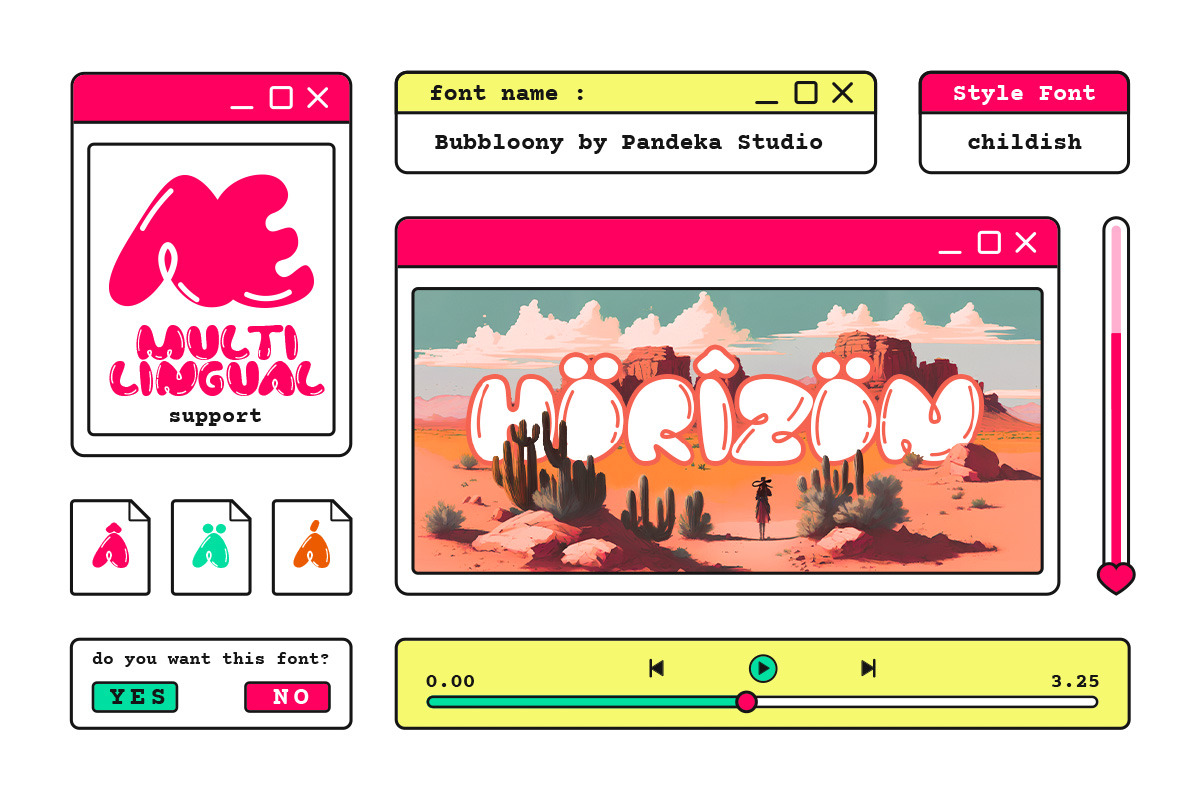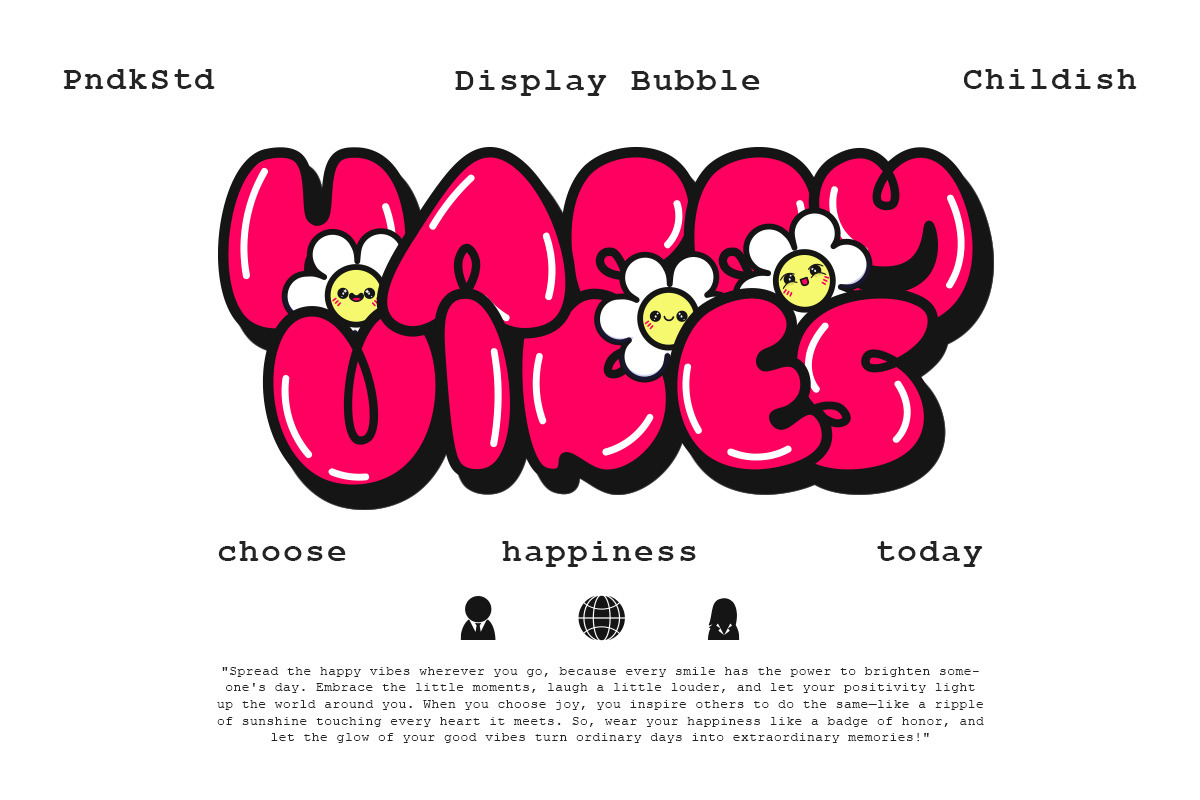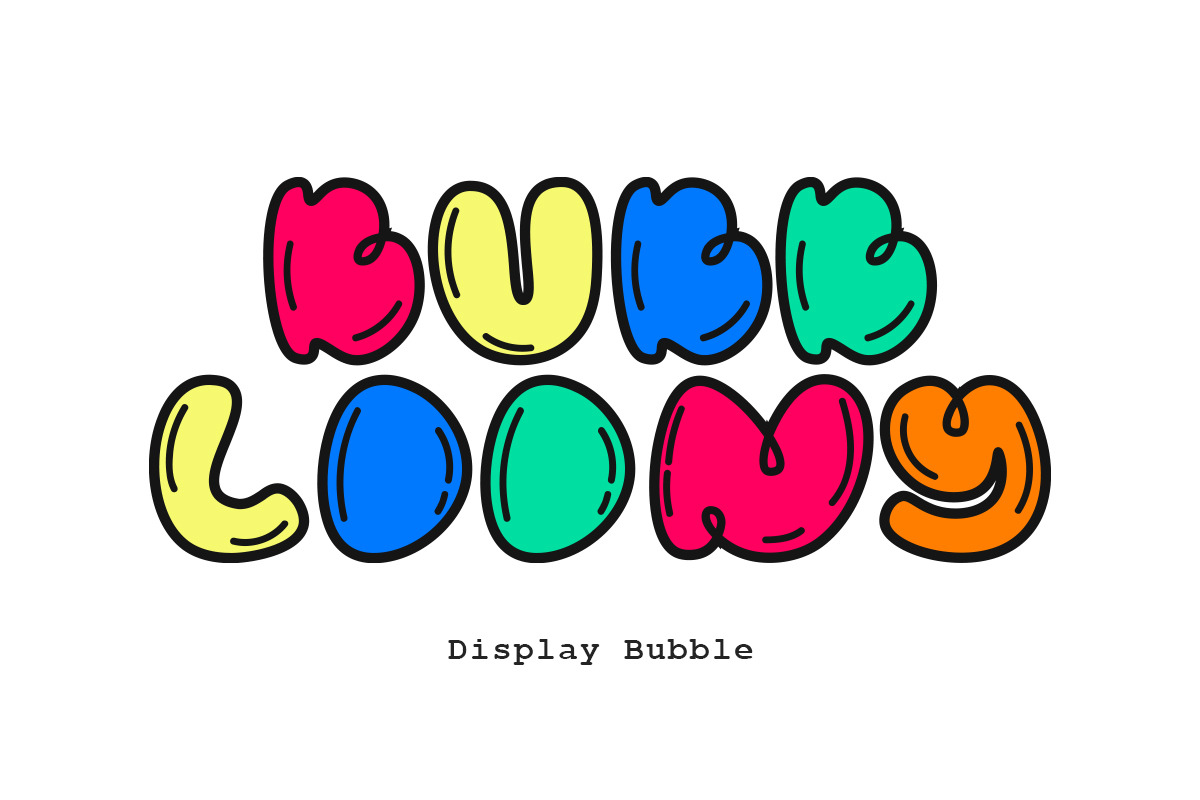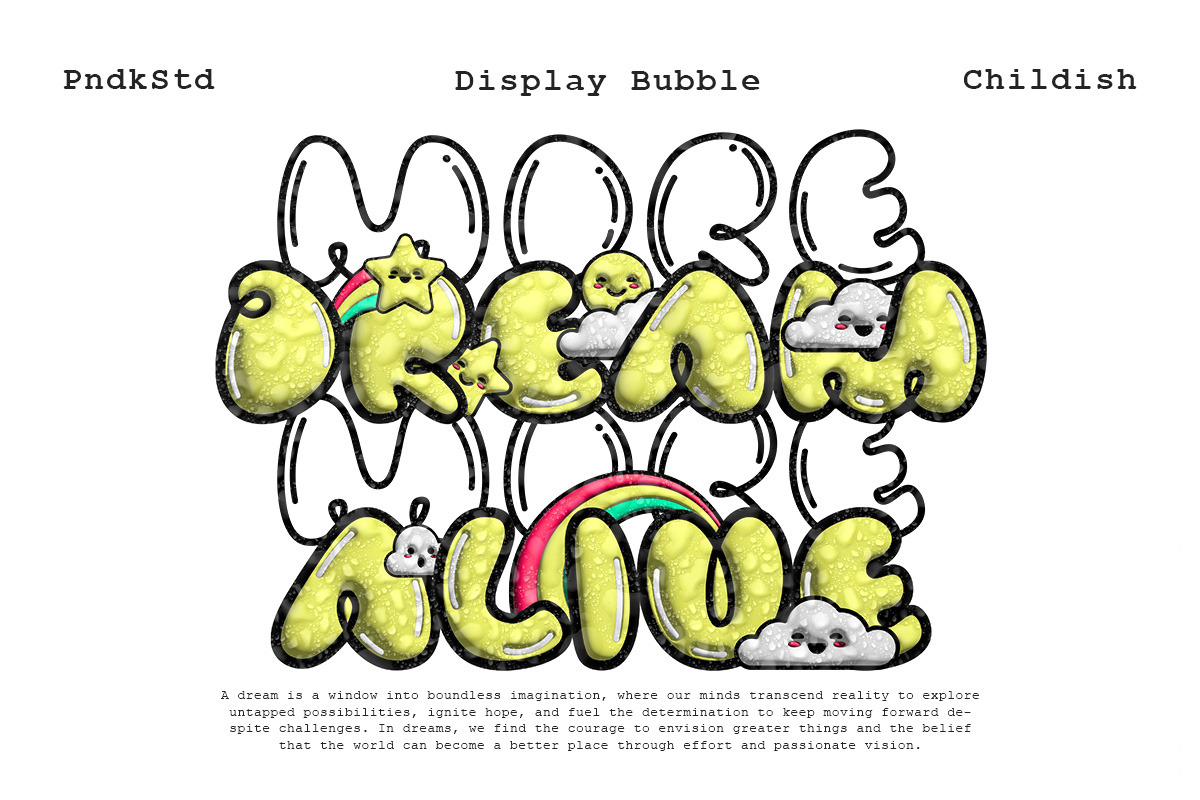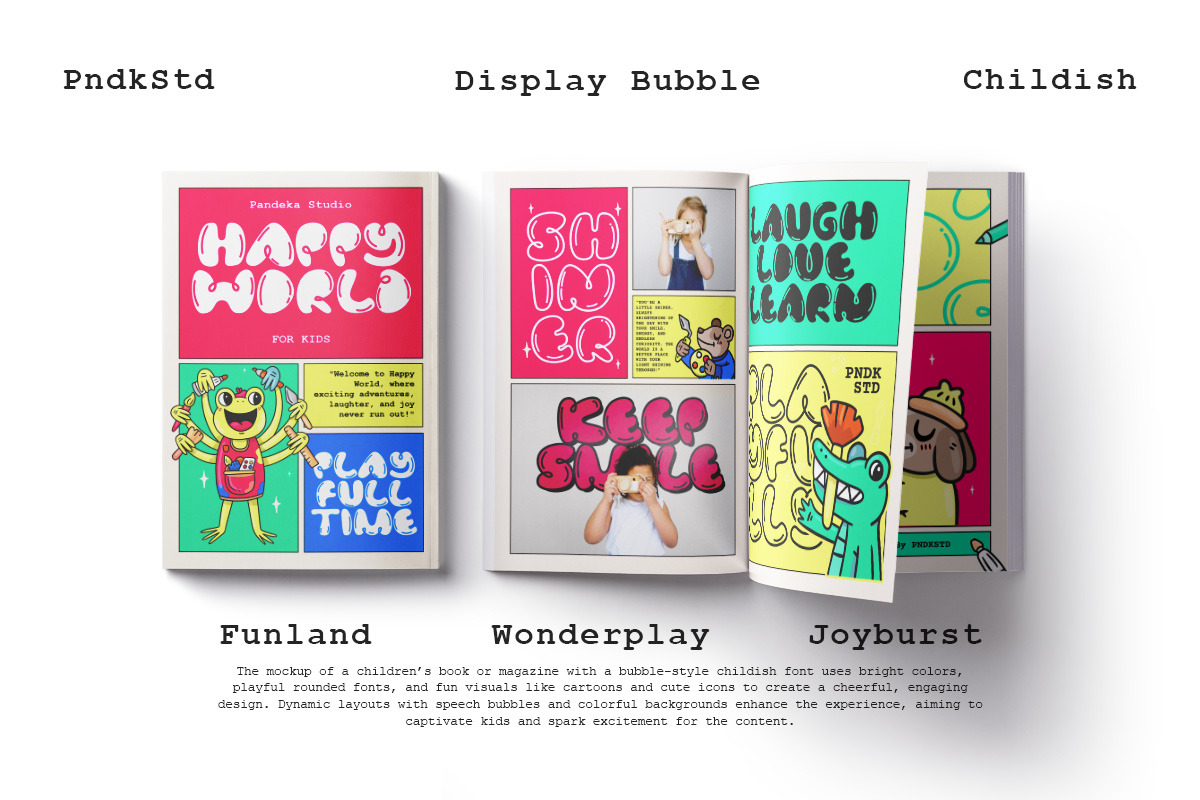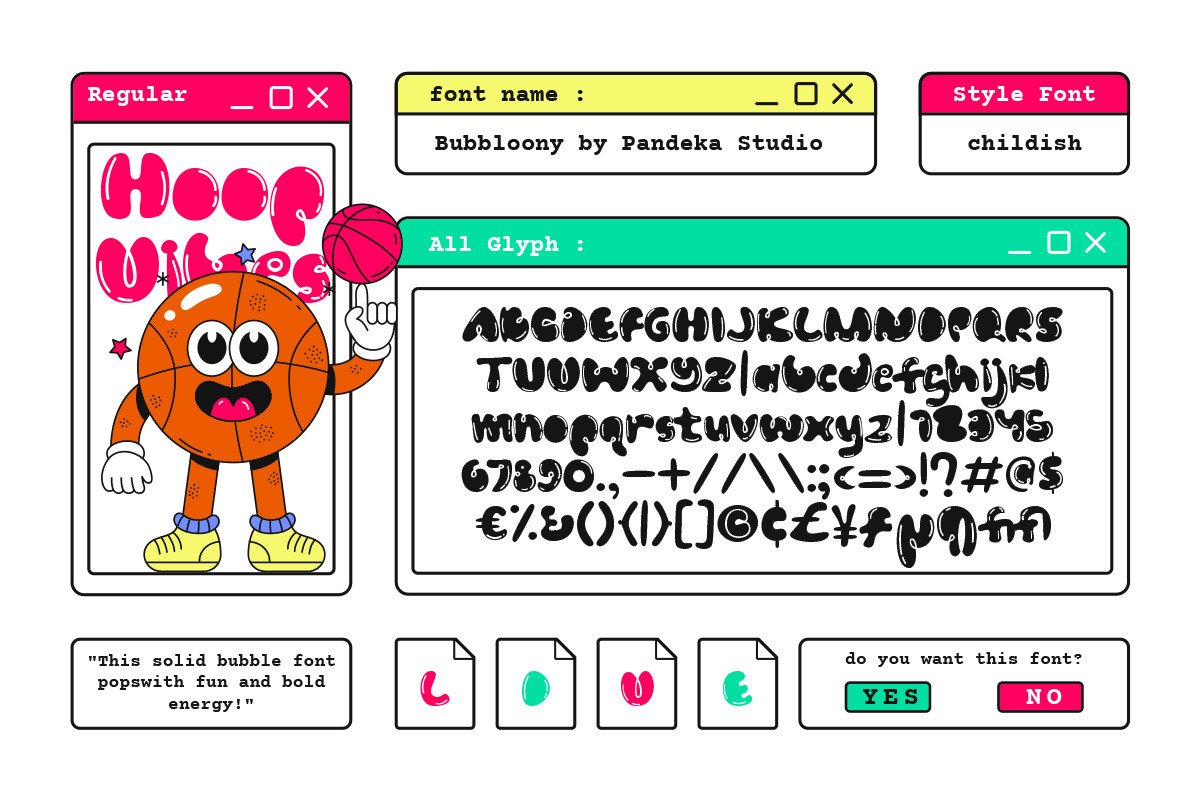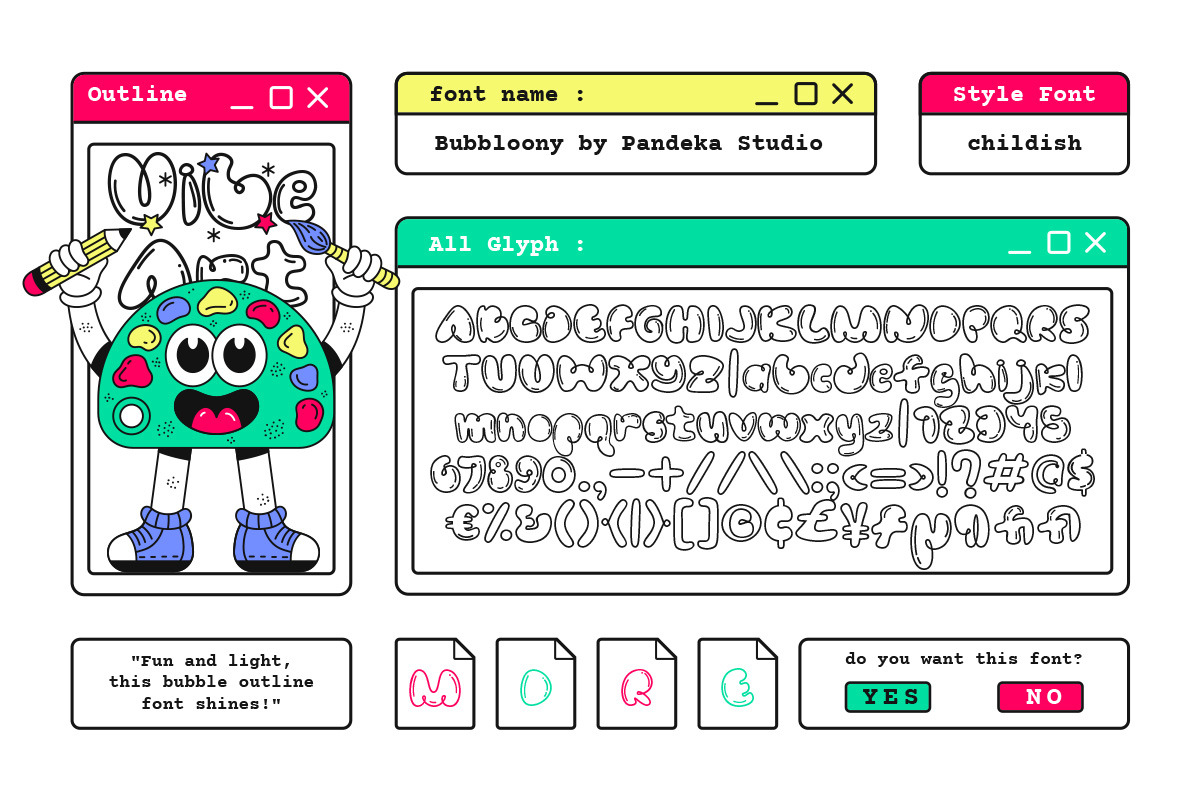
Bubbloony - Bubble Fun Font
Meet Bubbloony!
Bubbloony is a fun and vibrant bubble font perfect for adding a playful touch to your creative projects. Inspired by joy and imagination, this font features rounded, bubbly characters that bring a pop of personality to designs like posters, invitations, social media graphics, logos, and merchandise.
This font comes in two styles – Regular and Outline – giving you the flexibility to explore various design options. Its colorful and whimsical design makes it ideal for children’s themes, creative branding, and more.
Bubbloony is easy to use across multiple devices and design tools. It also includes multilingual support, making it suitable for a global audience.
- Playful bubble-style letterforms